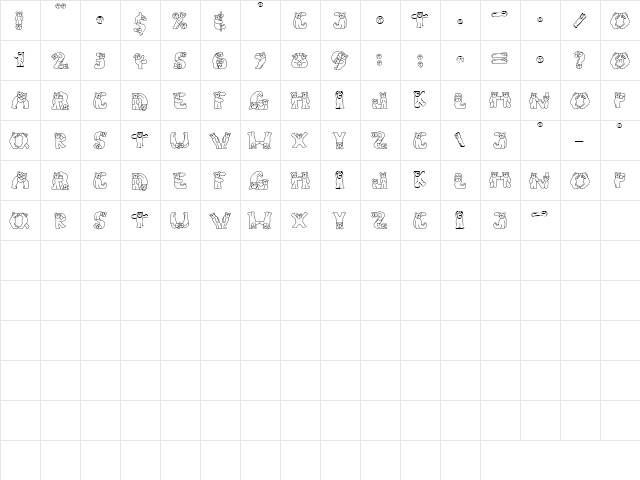
KF Teddy Regular
Design Context for KF Teddy Typeface
KF Teddy is a composed and adaptable typeface that performs quietly and consistently across a wide range of design contexts.